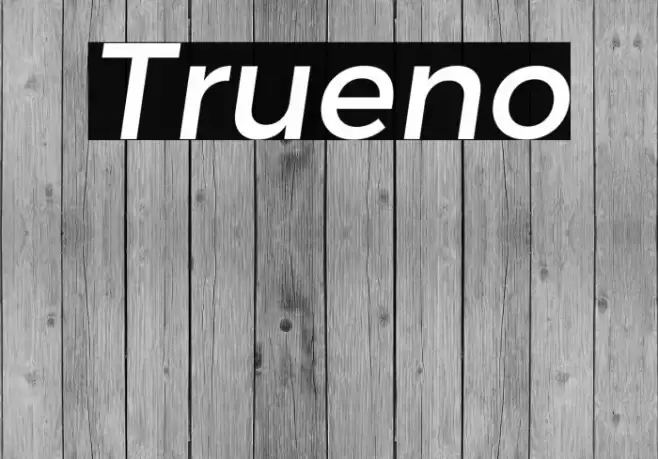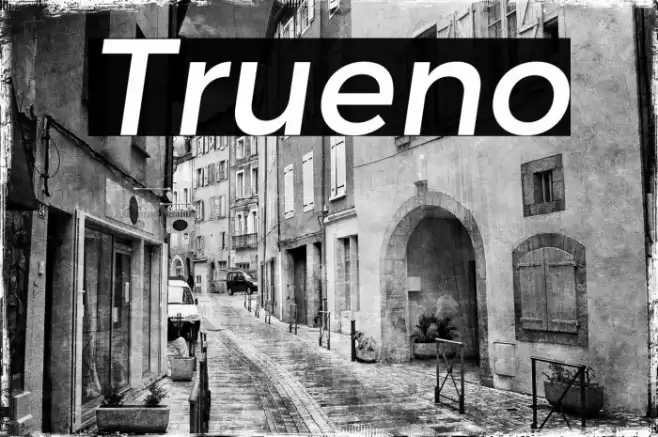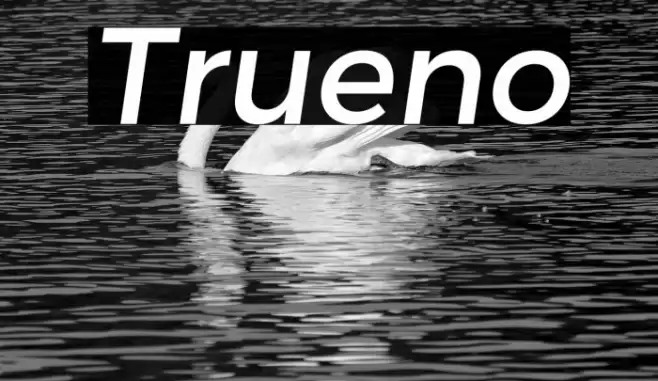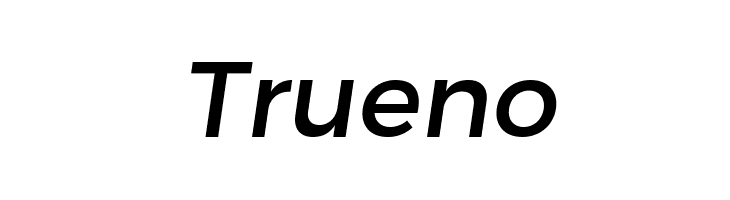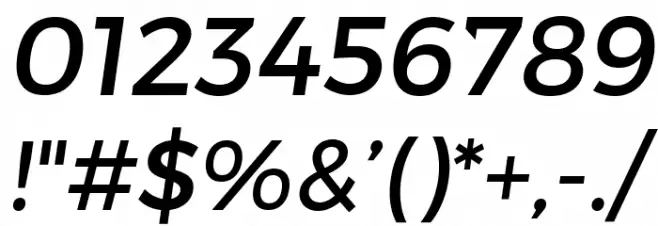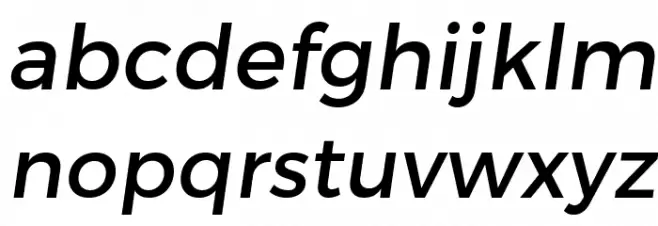
Trueno
This font features a clean and modern sans-serif design with a slight italic slant, giving it a dynamic and forward-moving appearance. The characters are well-proportioned with a consistent stroke width, providing a harmonious and balanced look. The uppercase letters are bold and assertive, while the lowercase letters maintain a friendly and approachable feel. The numerals are clear and easy to read, making them suitable for various applications. Special characters are included, enhancing the font's versatility. Overall, this font exudes a contemporary and professional vibe, making it ideal for a wide range of design projects.
A modern, italic sans-serif font with a clean and dynamic style.